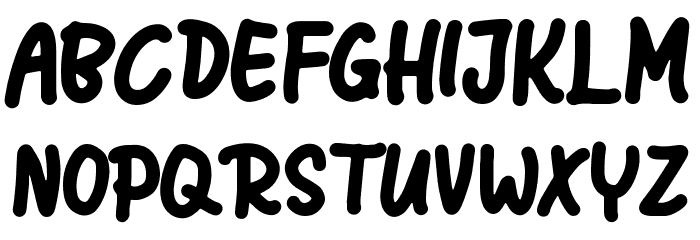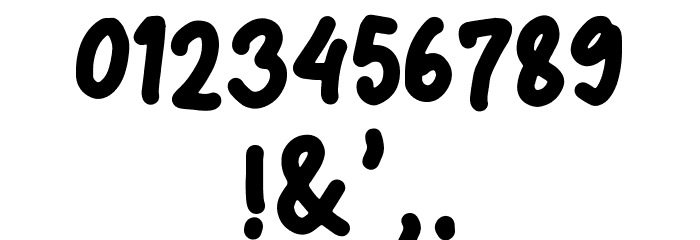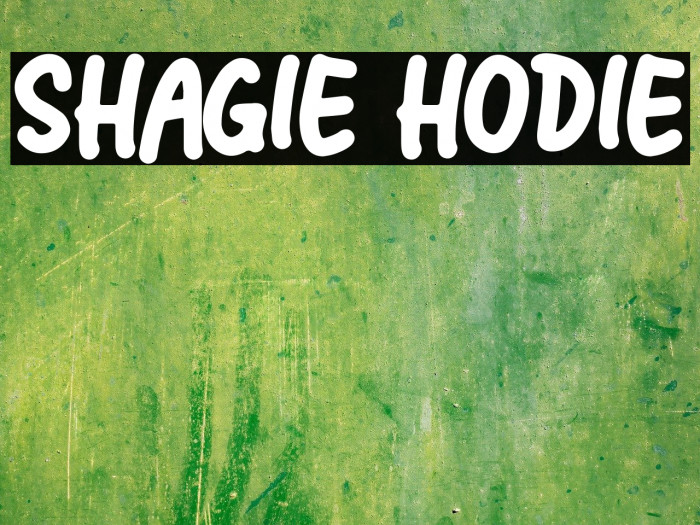
Shagie Hodie Font
This font features a playful and bold handwritten style, characterized by its thick, rounded strokes and casual appearance. The letters are slightly slanted, giving it a dynamic and energetic feel. The uppercase and lowercase characters maintain a consistent style, with a smooth flow that mimics natural handwriting. The numbers and special characters are equally bold, ensuring readability and a cohesive look across all elements. This font is ideal for projects that require a friendly and approachable aesthetic, such as children's books, casual branding, or creative posters.
A bold, playful handwritten font with rounded strokes and a casual style.
- Proposed Projects: Ideal for children's books, casual branding, creative posters, and playful designs.
- Overall Style: Playful